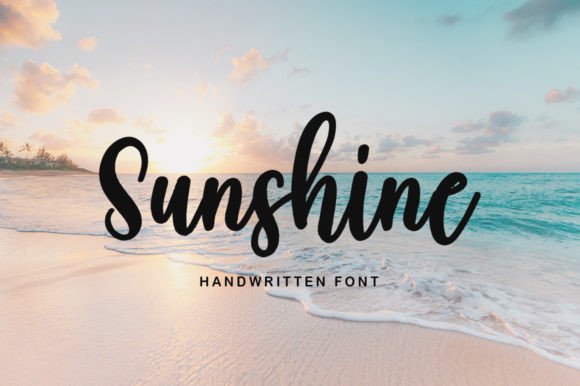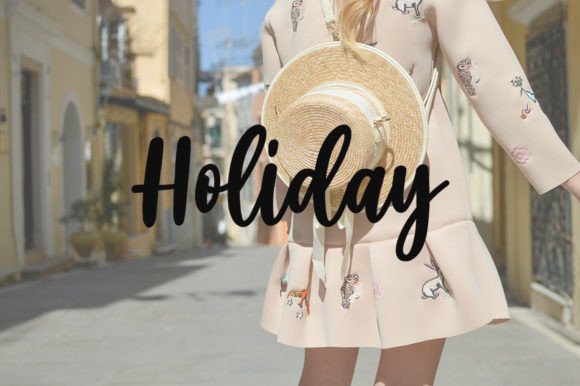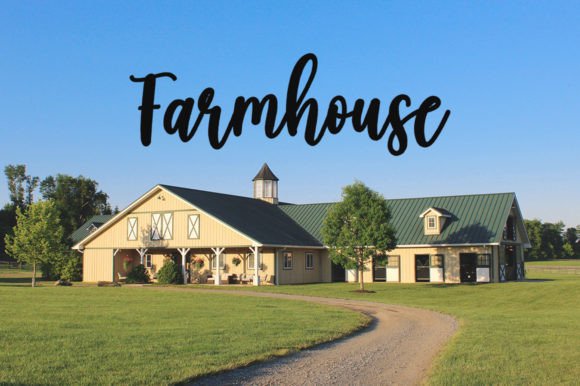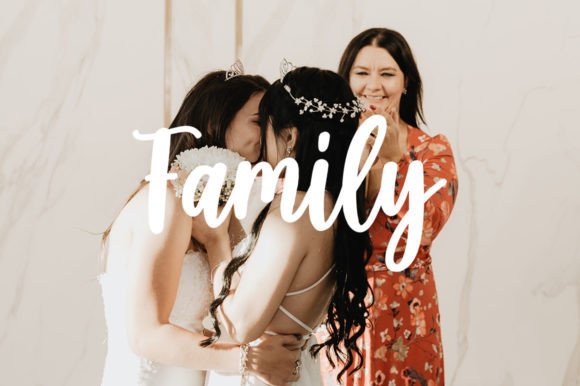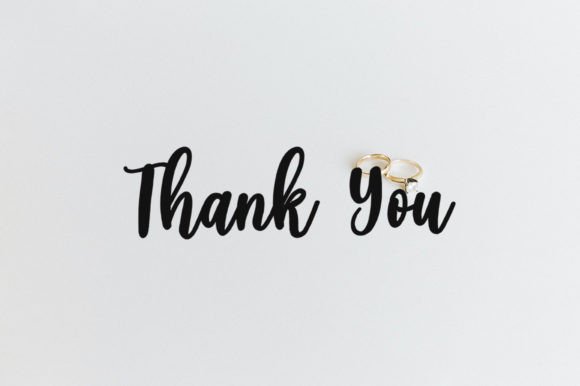
Sunshine Font
A Neat and Casual Handwritten Font
The Sunshine Font is a neat and casual handwritten typeface that adds a personal, friendly touch to any project. Its clean lines and playful design make it the perfect choice for a variety of creative applications. Whether you’re working on crafts, digital designs, presentations, or greeting cards, the Sunshine Font ensures your designs have a unique, welcoming feel that stands out with charm.
Perfect for Crafts and DIY Projects
If you’re creating crafts or DIY projects, the Sunshine Font is an excellent choice. Its casual, handwritten style adds a personalized touch to your creations. Whether you’re designing scrapbooks, cards, or other handmade items, this font will give your projects a distinctive and friendly look, making them feel special and one-of-a-kind.
Ideal for Digital Designs and Presentations
For digital designs and presentations, the Sunshine Font offers a stylish yet approachable design that suits any creative content. Whether you’re working on website graphics, social media posts, blog headers, or presentation slides, this font brings a fun and casual vibe to your work, ensuring that your digital designs look polished and engaging.
Great for Greeting Cards and Invitations
The Sunshine Font is also perfect for creating greeting cards, thank you notes, and invitations. Whether you’re designing cards for birthdays, holidays, or other special occasions, this font adds a warm, welcoming touch to your messages. Its playful yet legible design ensures your cards and invitations feel personal, making them stand out with a friendly charm.
Versatile for Multiple Design Applications
The Sunshine Font is highly versatile, making it ideal for various design applications. Whether you’re working on flyers, logos, business cards, posters, or stationery, this font adapts perfectly to your needs. Its approachable design ensures that it works well across both digital and print media, making it an excellent choice for both personal and business projects.
Fun, Friendly, and Legible
Despite its fun and casual design, the Sunshine Font remains legible and easy to read. Its smooth strokes and clean structure ensure that your text is clear, even when used for longer passages or smaller sizes. Whether you’re creating headlines, captions, or full text blocks, this font offers the perfect balance of creativity and readability, making it perfect for a wide range of design projects.
The Sunshine Font is designed to be easy to use and integrates seamlessly into most design software. Whether you’re creating logos, greeting cards, social media posts, or advertising materials, this font ensures your designs look professional and polished. Its flexibility makes it ideal for both large text and small details, allowing you to get creative with all kinds of projects.
Add a Friendly Touch to Your Designs with Sunshine Font
If you’re looking for a neat, casual, and playful handwritten font to enhance your designs, the Sunshine Font is the perfect choice. Whether you’re working on crafts, digital designs, presentations, or greeting cards, this font brings a personal and welcoming touch to your projects. Let the Sunshine Font add a bright, cheerful vibe to your work and create spectacular designs that leave a lasting impression.